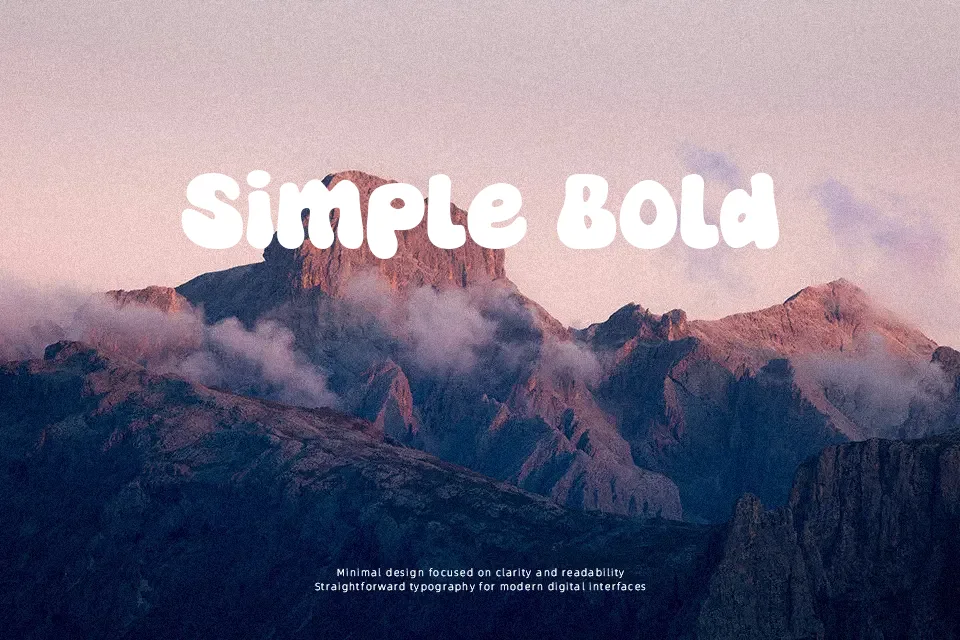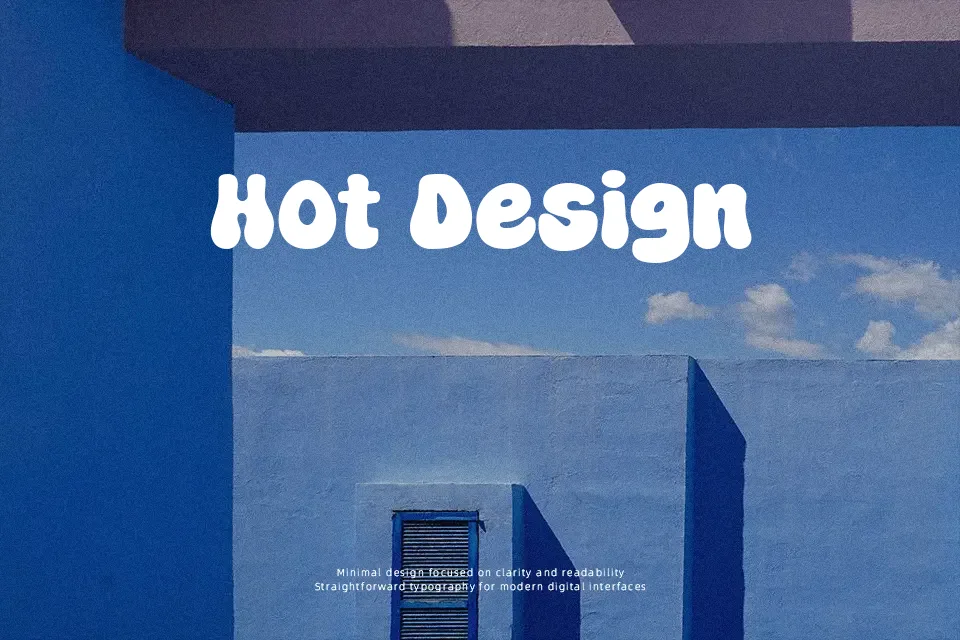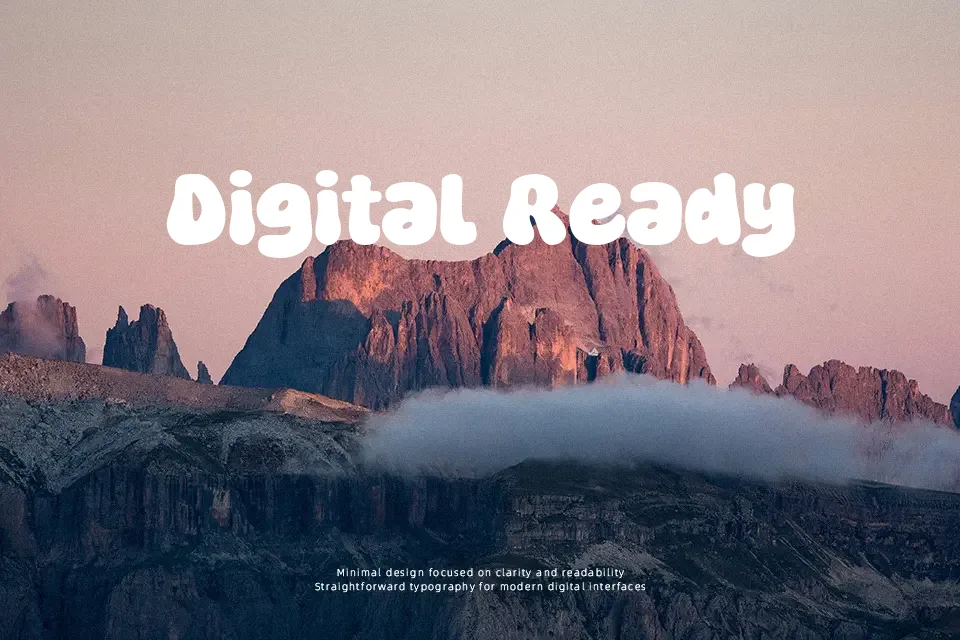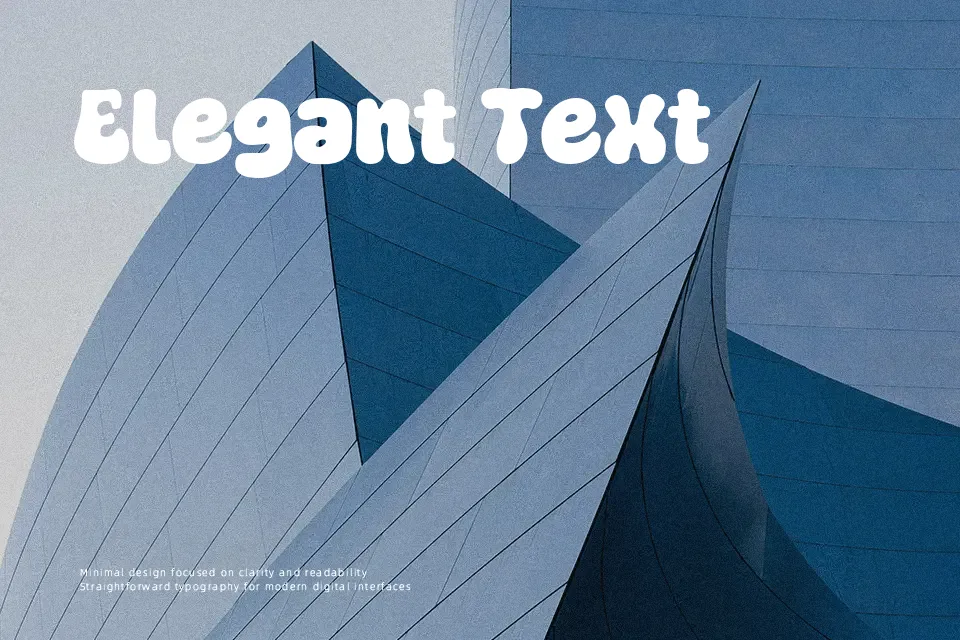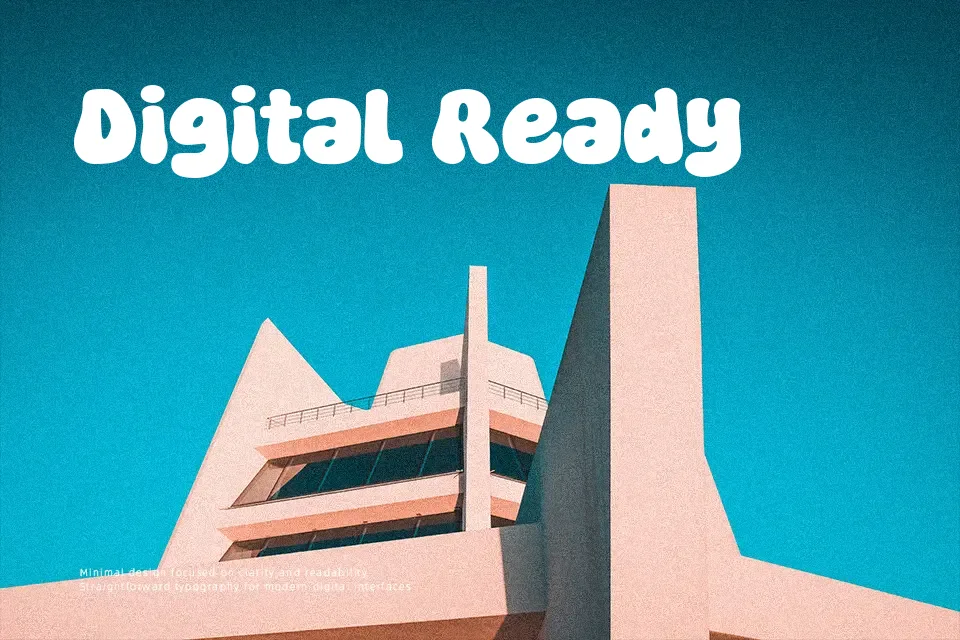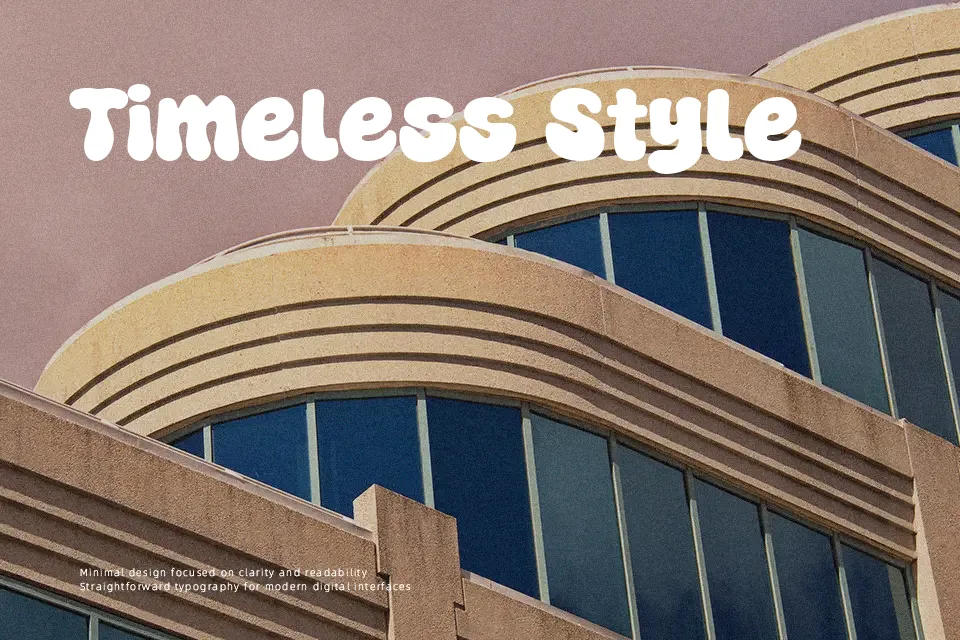
Super Theory Font
Designed by fsuarez913
Super Theory Font delivers heavy, bulbous letterforms defined by smooth outer curves, low stroke contrast, and a compact horizontal footprint. The dense proportions and tight character spacing generate immediate visual impact, making the typeface exceptionally well suited for music album covers, streetwear graphics, food packaging, and oversized event banners. While the glyphs command attention across large display formats, the narrow interior counters and substantial stroke weight reduce legibility when scaled down to small sizes. In dense body text or multi-line paragraphs, the letterforms quickly become difficult to parse, so this design performs best when reserved for expressive headline treatments.
Best For: retro apparel graphics, food packaging labels, music festival posters, sticker designs
Not Ideal For: continuous body text, mobile interface labels, formal business correspondence, dense editorial layouts
Perfect for advertising, headline, and logo, with a bold and decorative style.